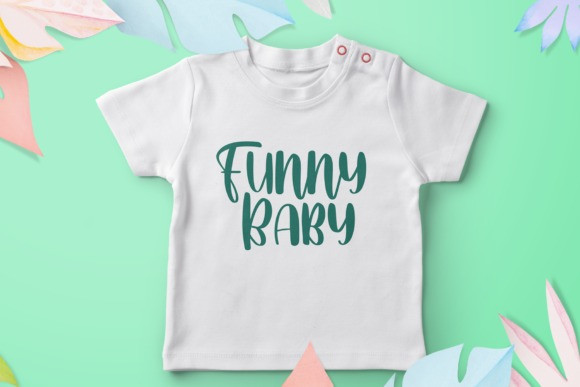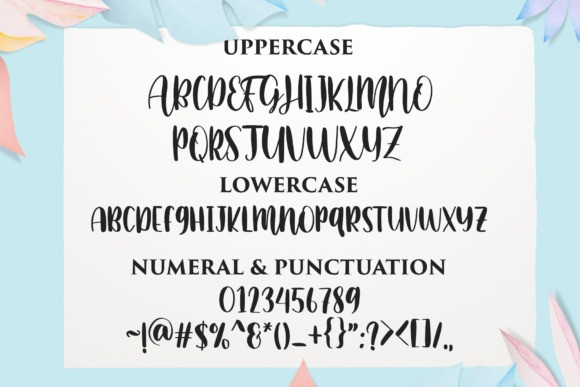
Whitener Display Font
Whitener Display Font is a sweet and friendly handwritten font. Fresh and casual, this font is ideal for writing wedding invitations, cards, or any other design that might need a lovely touch.